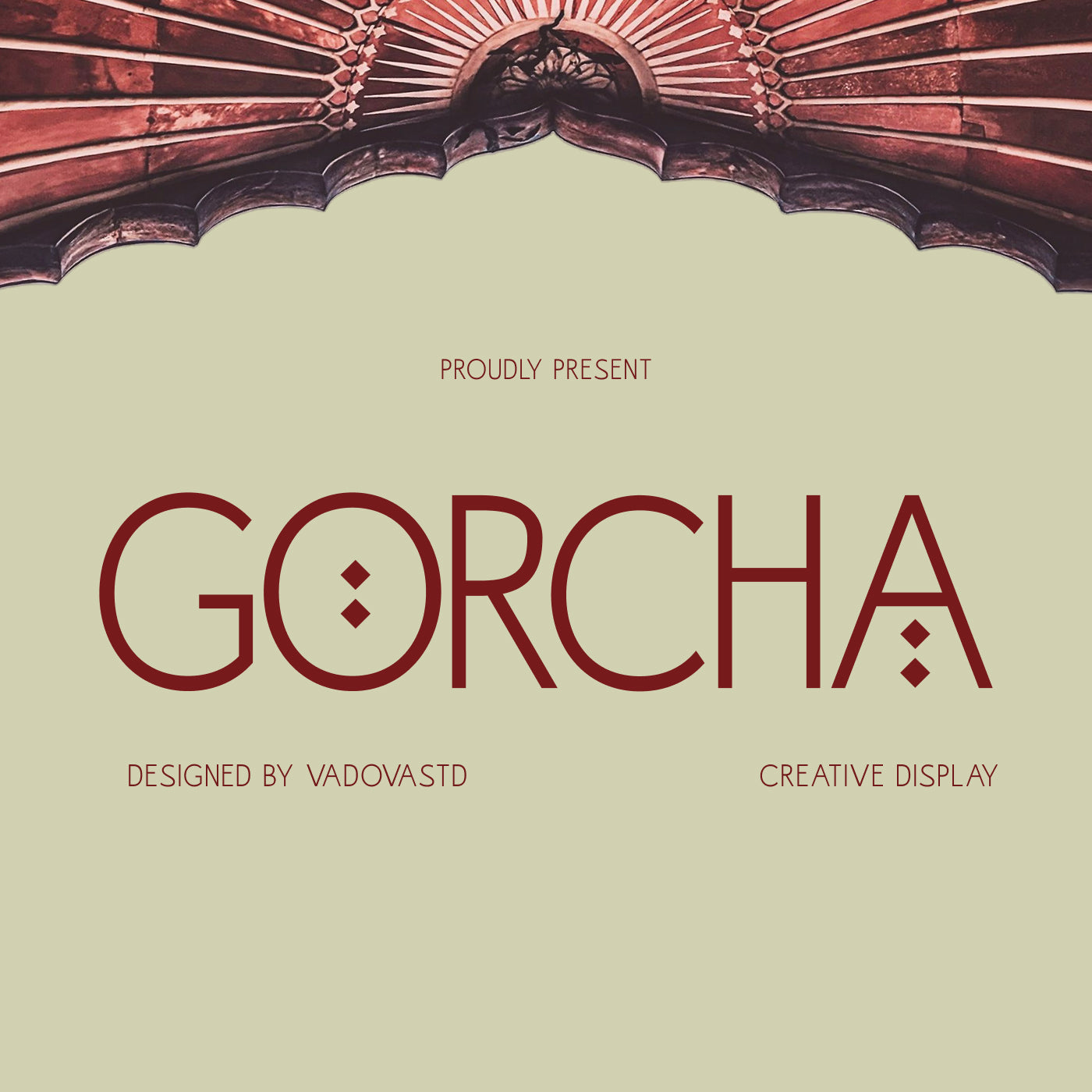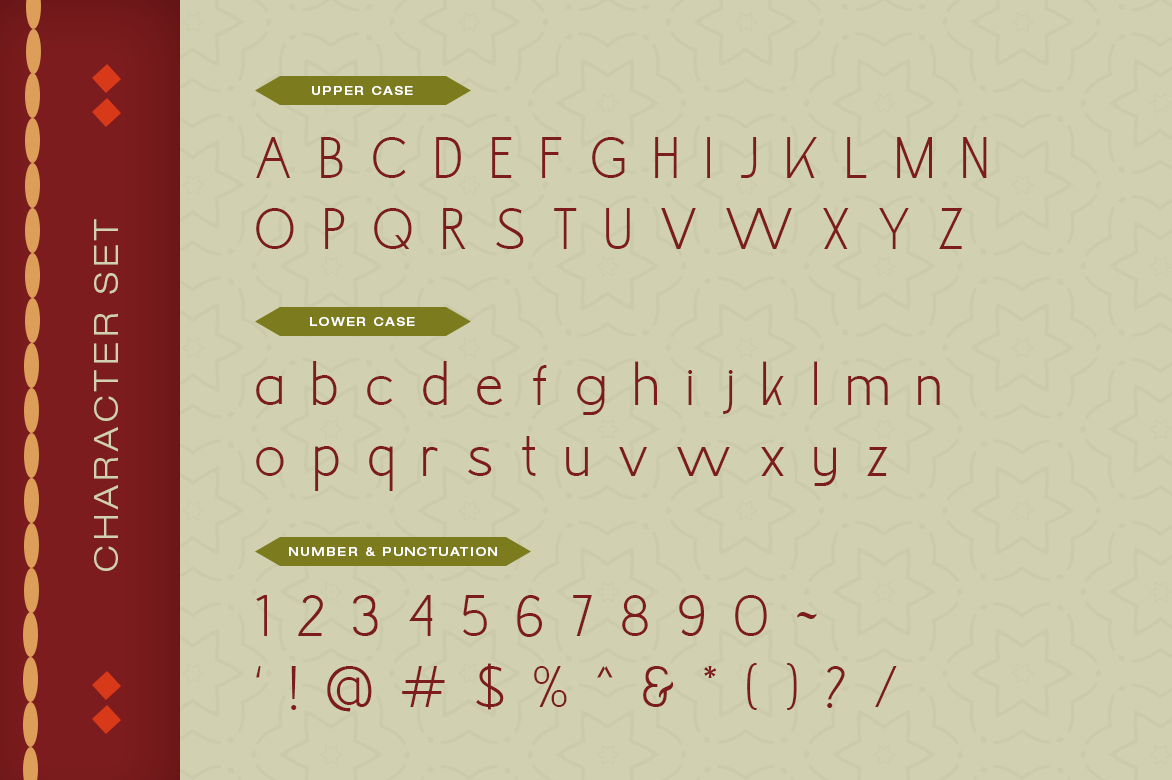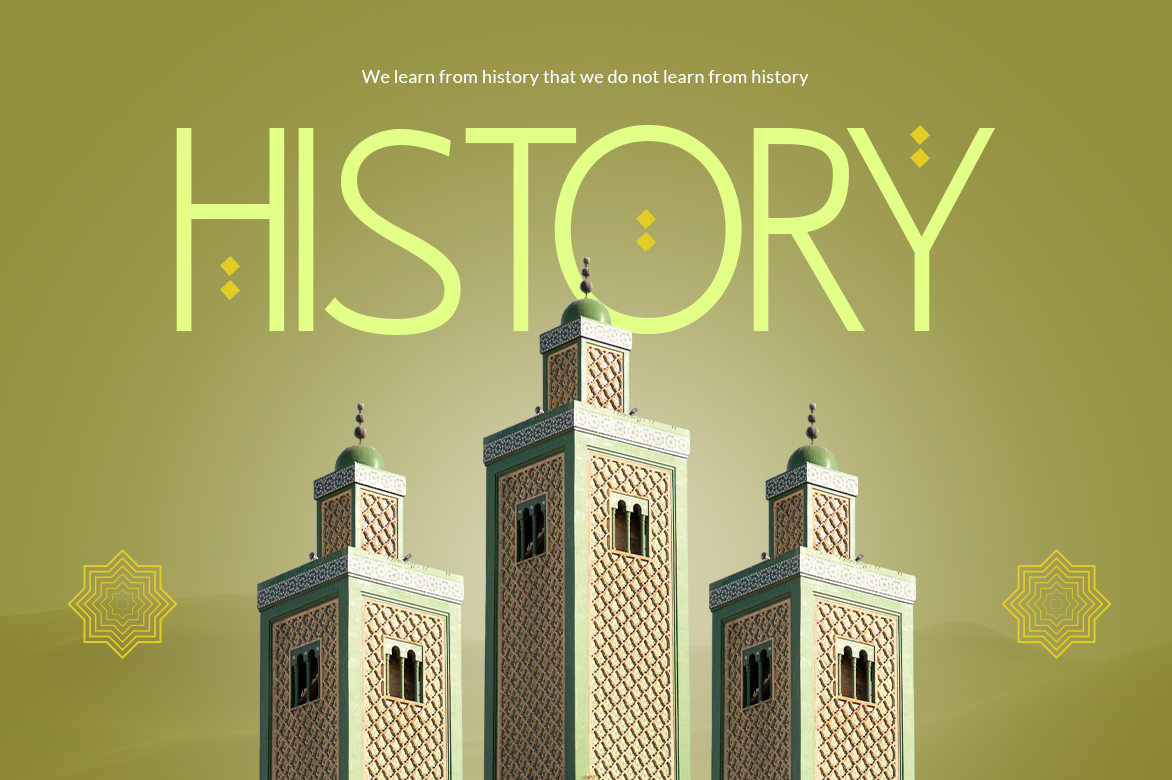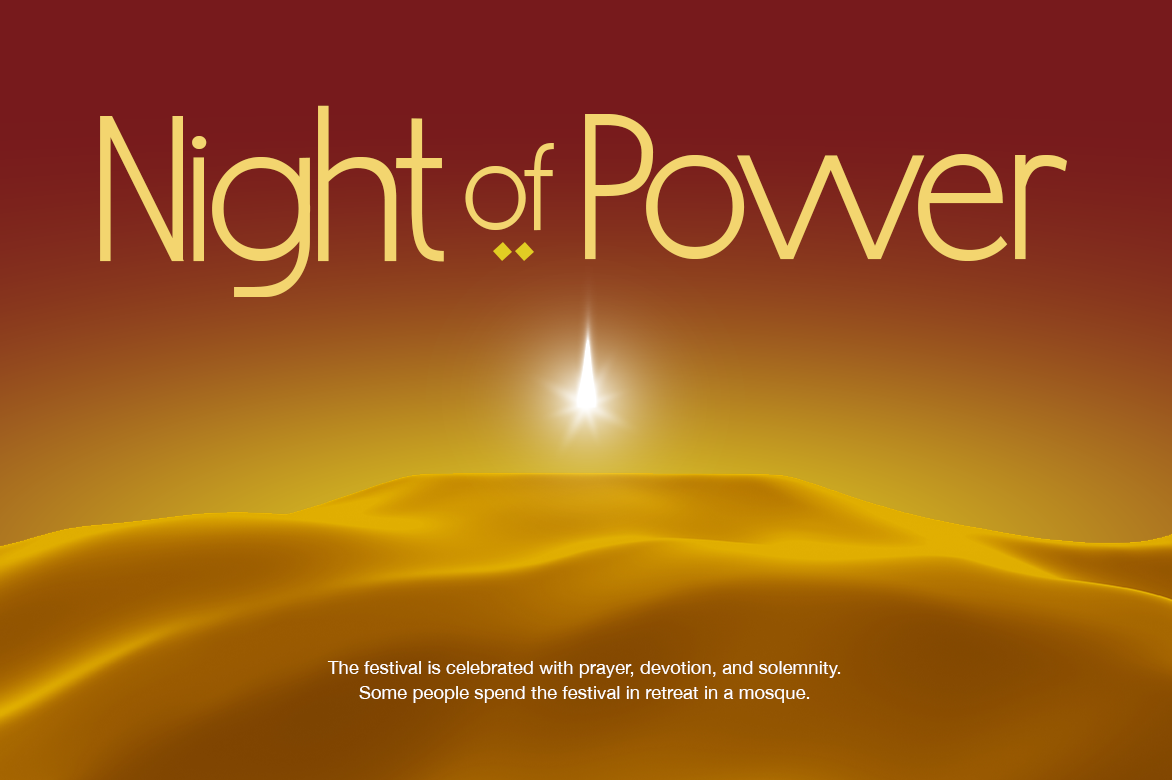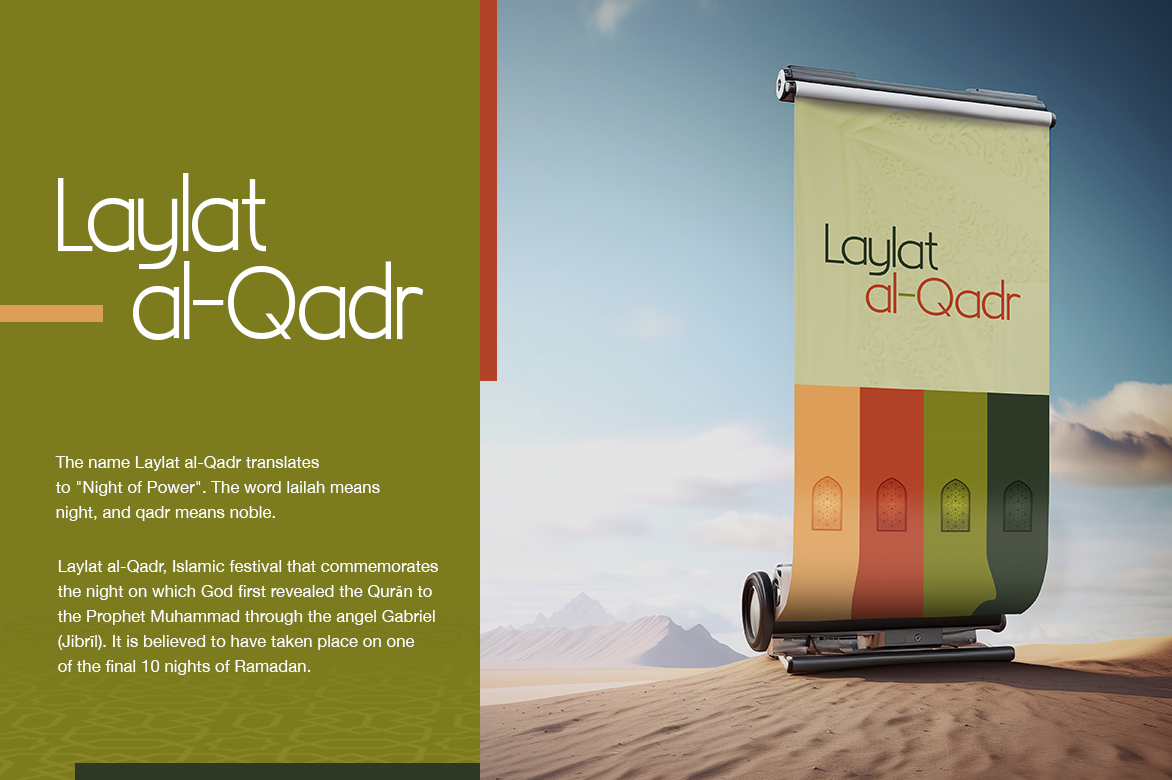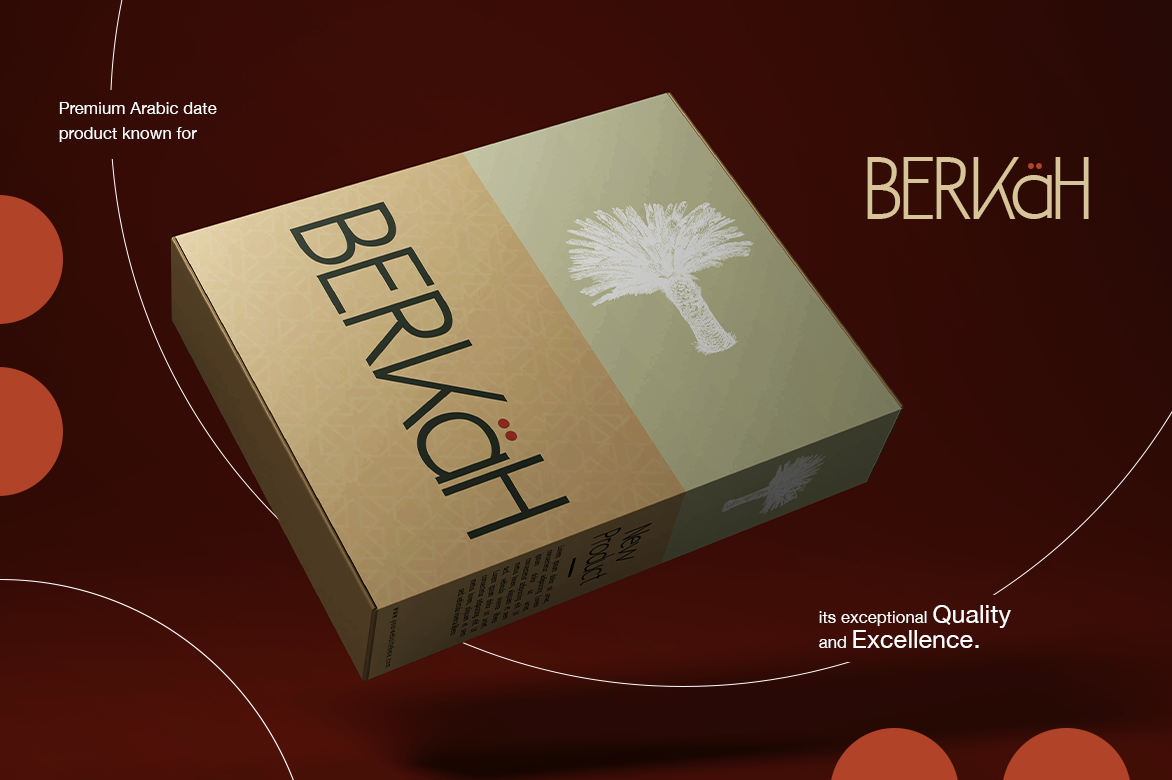
Gorcha Creative Display Font
Gorcha Creative Display Font is a unique display typeface inspired by elegant geometry and infused with cultural aesthetics reminiscent of Middle Eastern and South Asian design. The font features tall, slender letterforms accented with ornamental diamond shapes, delivering a refined and memorable appearance. Gorcha is perfect for branding, packaging, posters, editorial headlines, and event graphics that require a distinct cultural flair.
Gorcha is ideal for design projects that aim to convey a sense of tradition, culture, or spirituality with a modern twist. Its ornamental details and structured form make it a strong choice for religious or cultural event promotions, editorial layouts, ethnic product packaging, and brand identities seeking a refined and heritage-driven look.
Gorcha Creative Display Font is a unique typeface featuring tall, slender letterforms with ornamental diamond shapes, inspired by Middle Eastern and South Asian design. It is available in TTF, OTF, and WOFF formats, includes uppercase and lowercase characters, as well as numerals and punctuation.